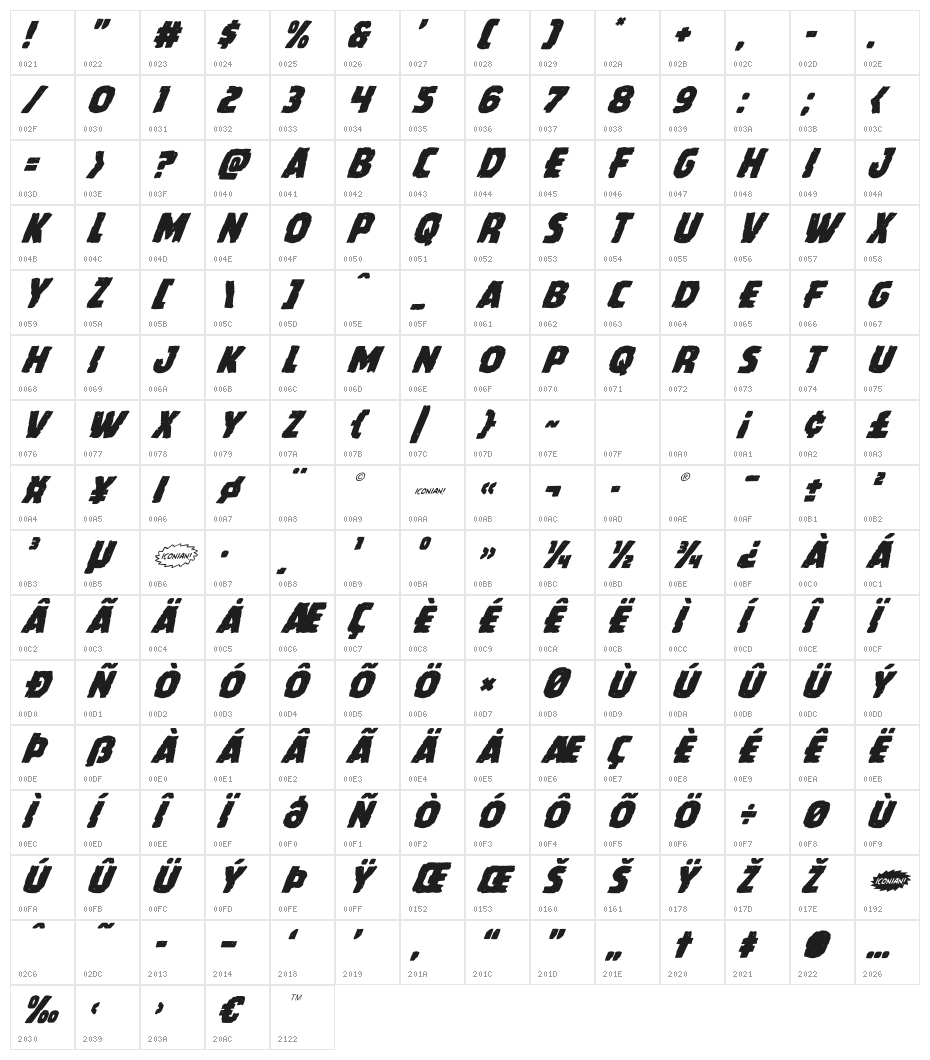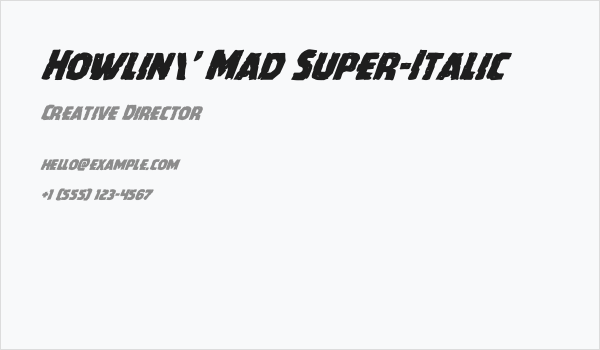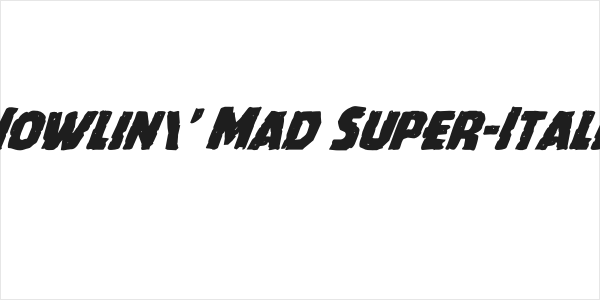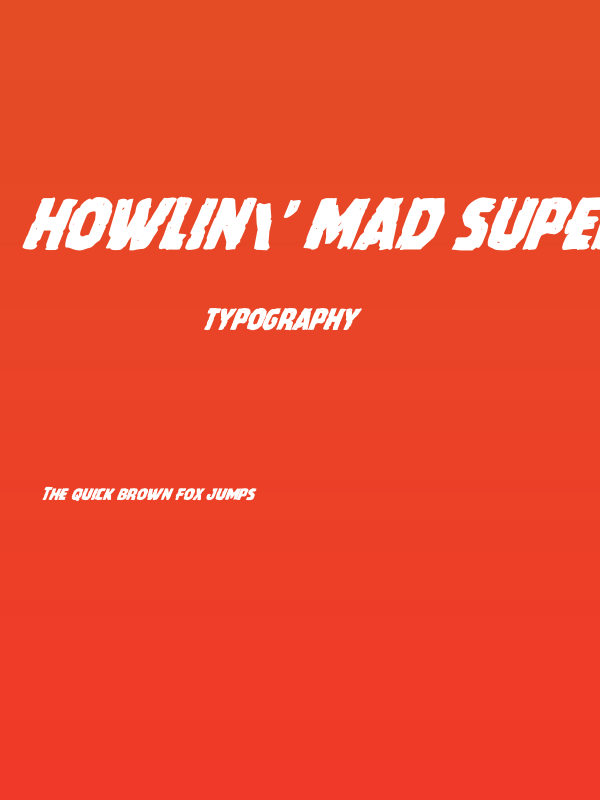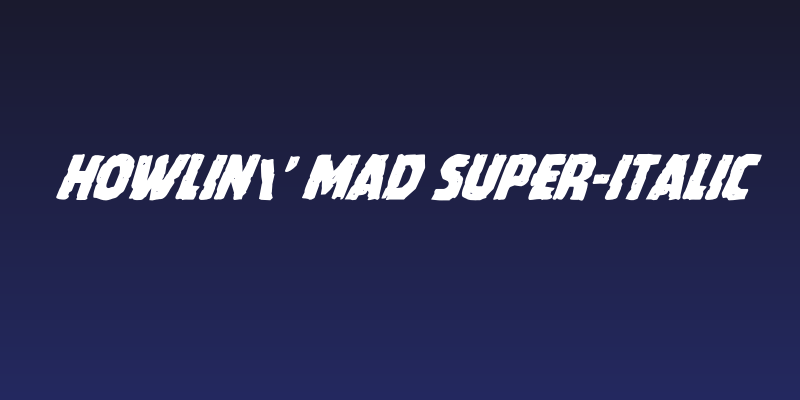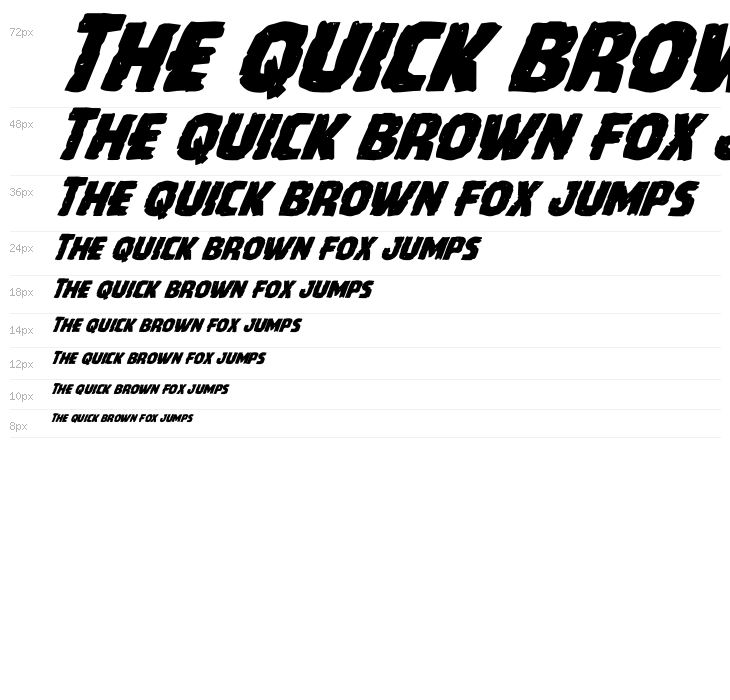
Howlin' Mad Super-Italic Font
Howlin' Mad Super-Italic Description
This font features a bold and dynamic style with a strong italic slant, giving it a sense of motion and energy. The characters are thick and robust, with irregular edges that add a rugged, hand-drawn feel. The uppercase and lowercase letters maintain a consistent weight, while the numbers and special characters follow the same bold and energetic design. The overall appearance is striking and attention-grabbing, making it suitable for impactful designs.
Proposed ProjectsIdeal for posters, logos, and branding that require a bold and energetic look.